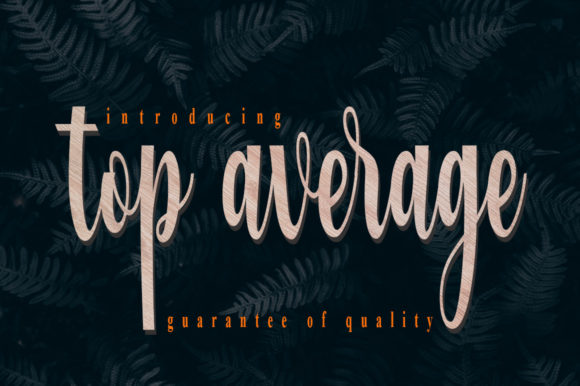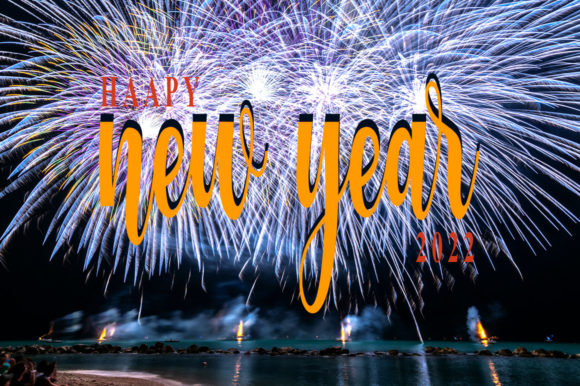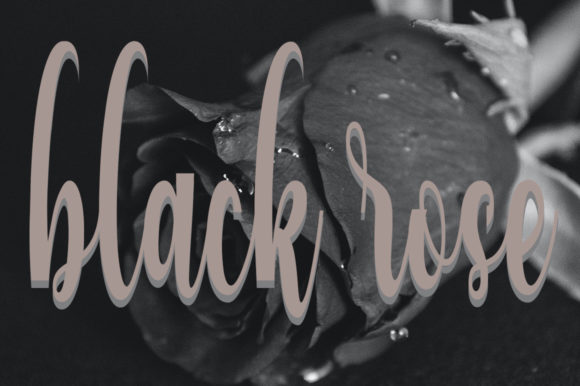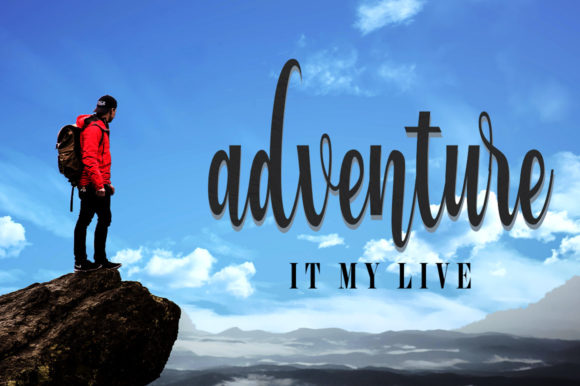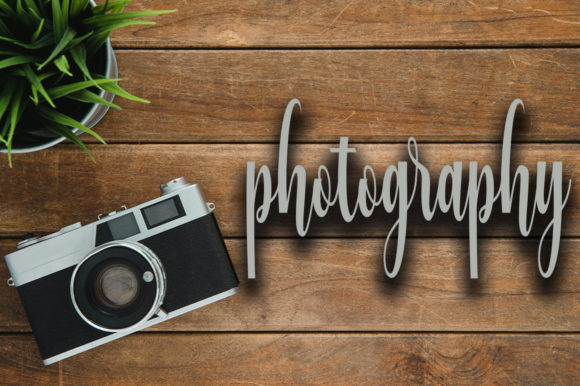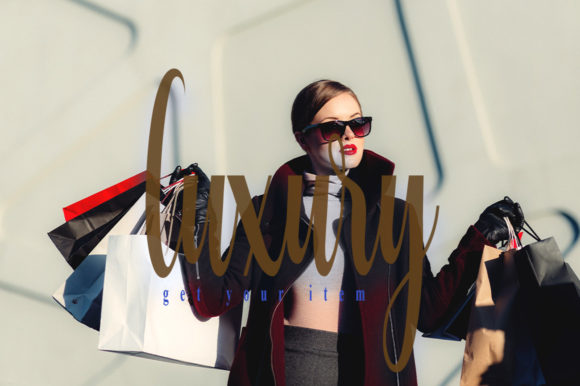
Top Average Font
About Top Average Font
Top Average is a neatly handwritten font made for packaging products, invitation cards, flyers, event posters and can be used in all aspects that require high-quality fonts. This font has a unique character and is perfectly kerned so that it is suitable for use in all aspects.